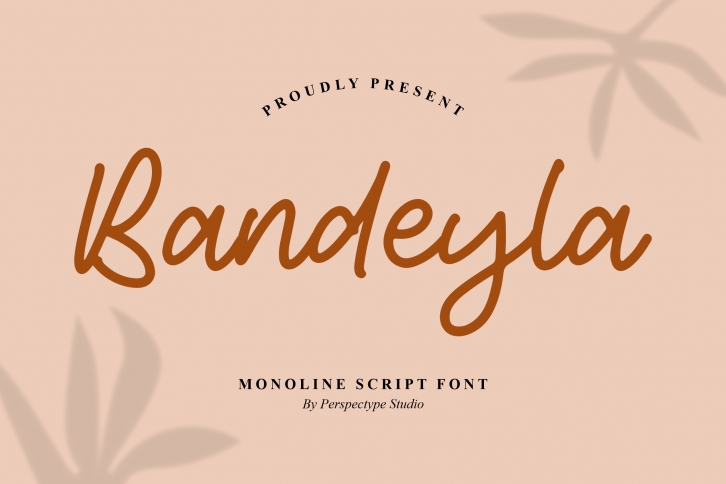
Bandeyla is a stylish and modern handwritten script font. No matter the topic, this font will be an incredible asset to your fonts' library, as it has the potential to elevate any creation.